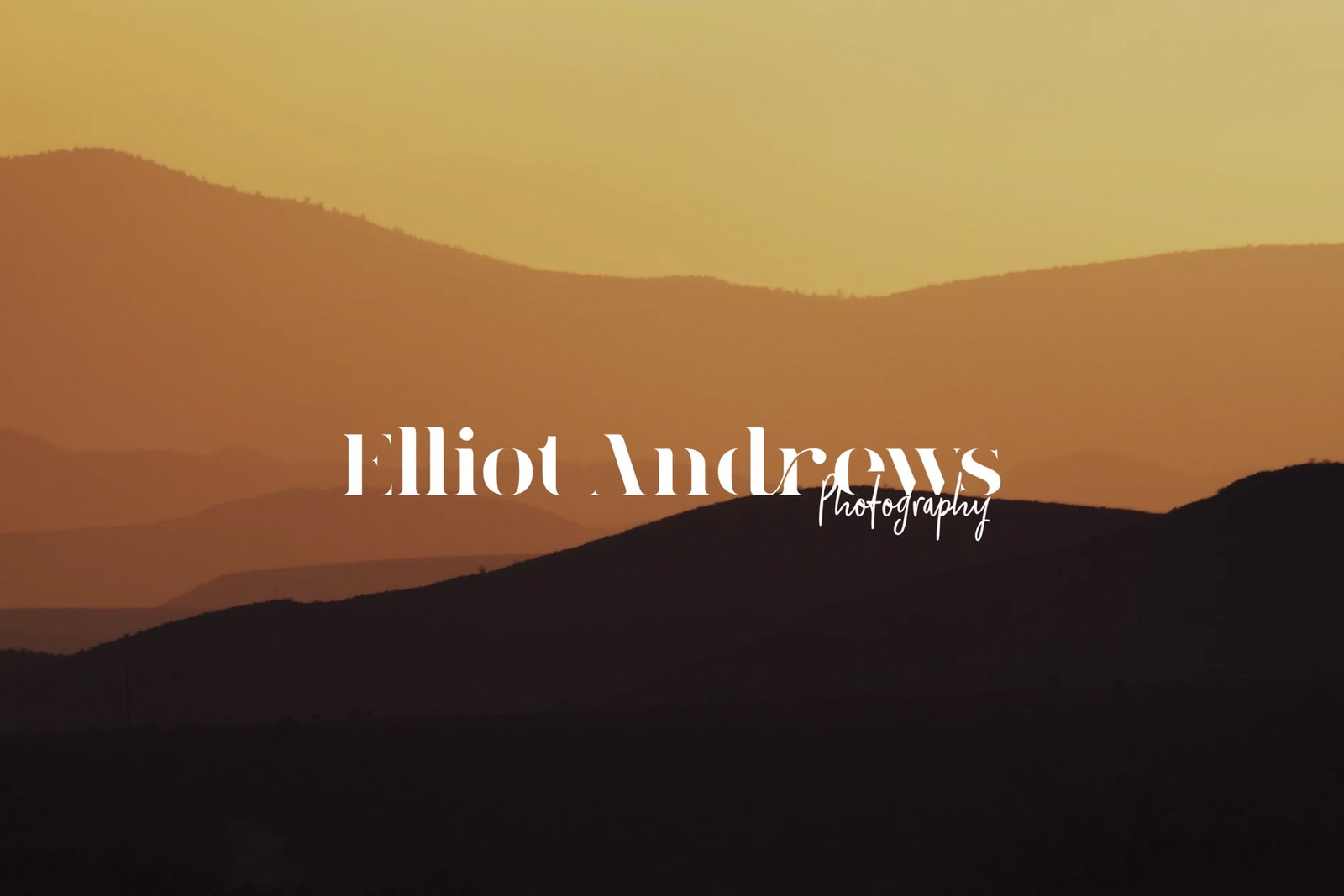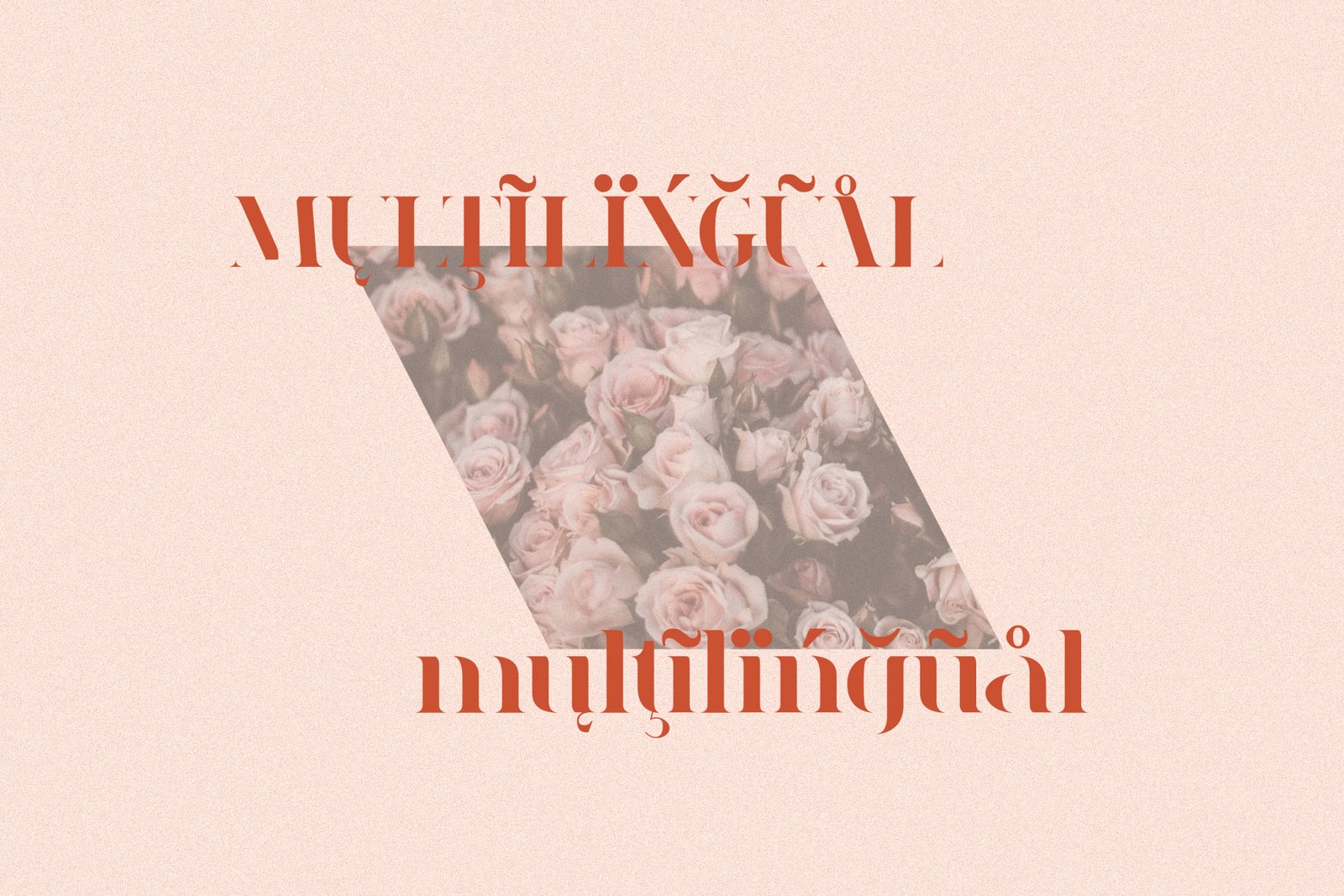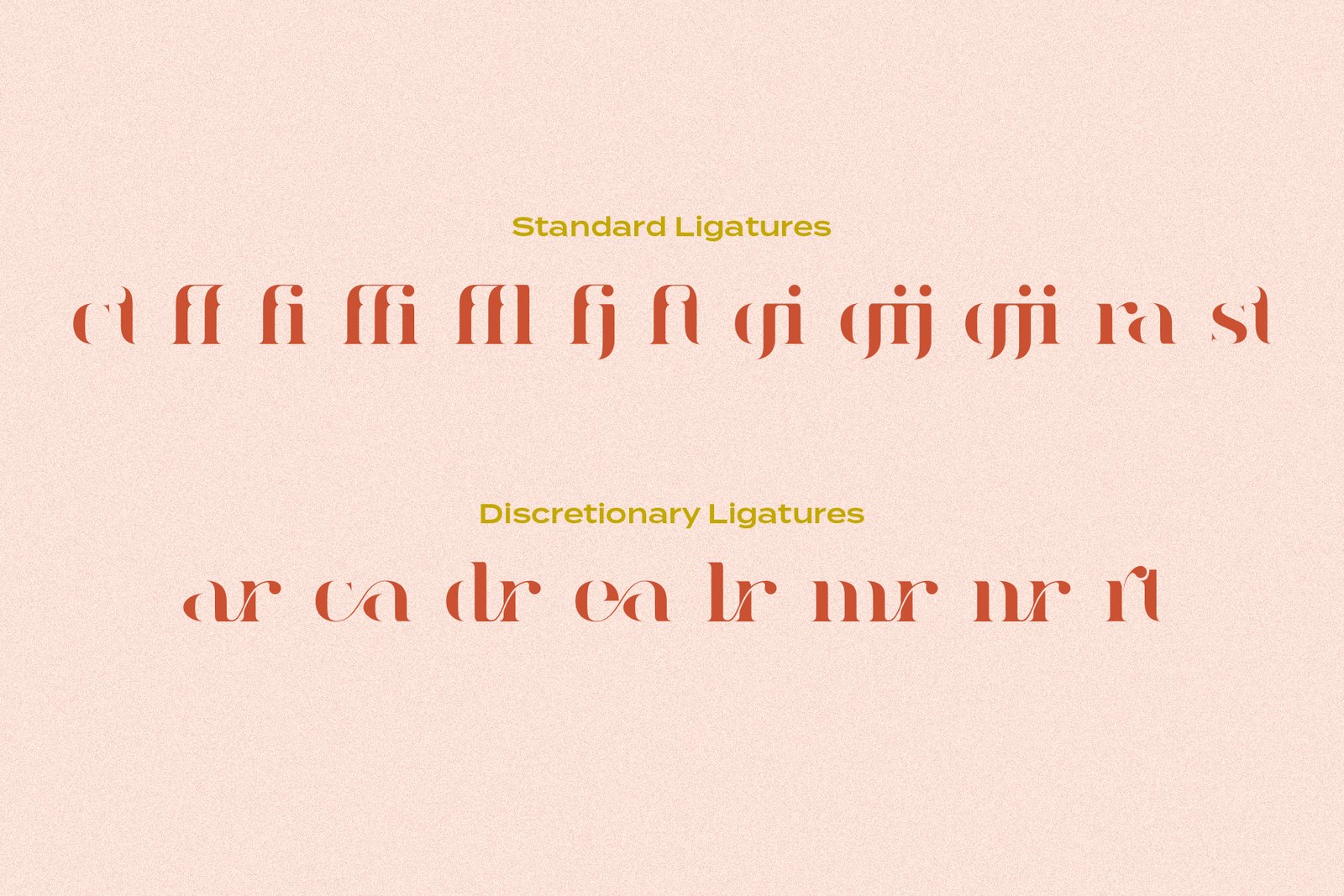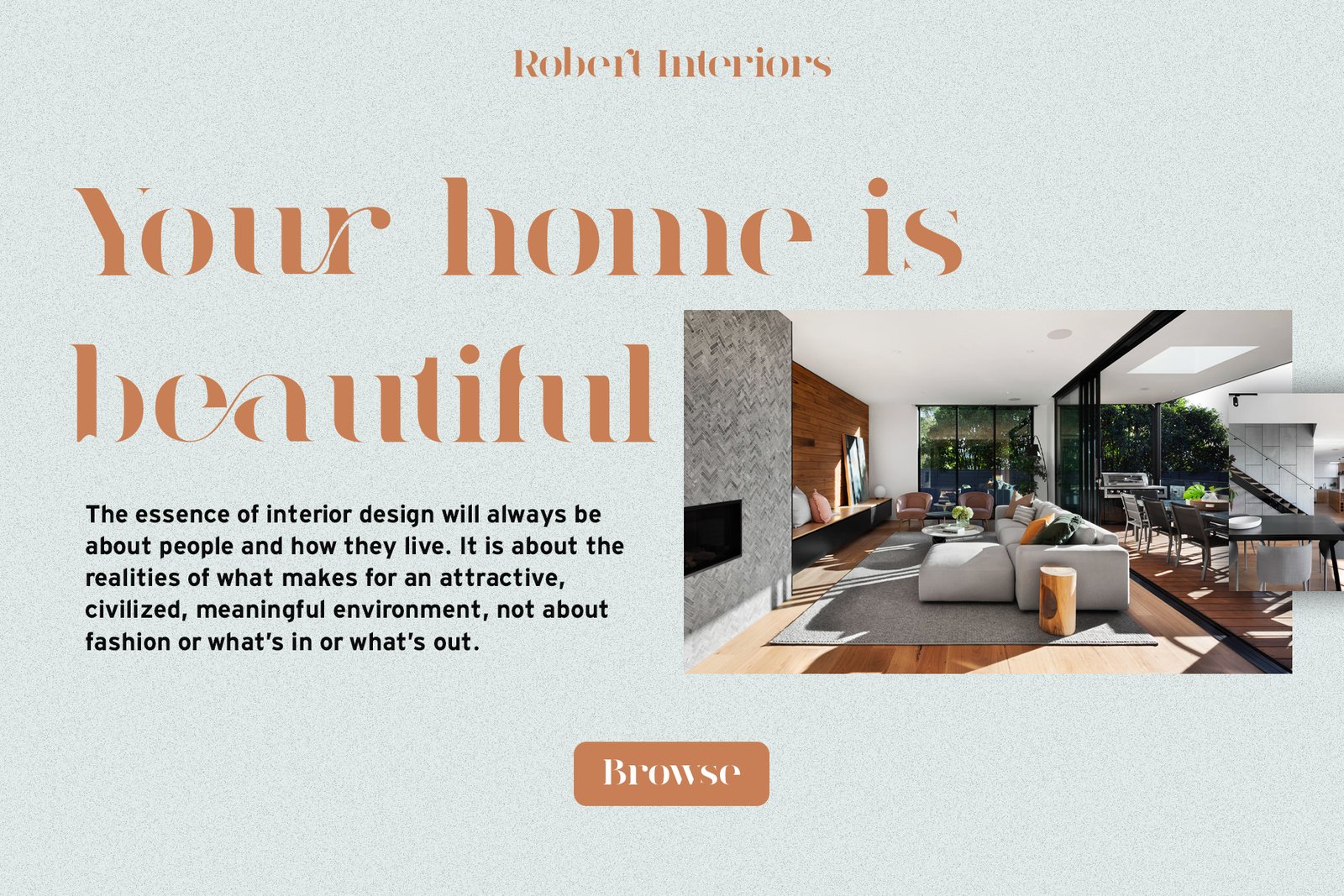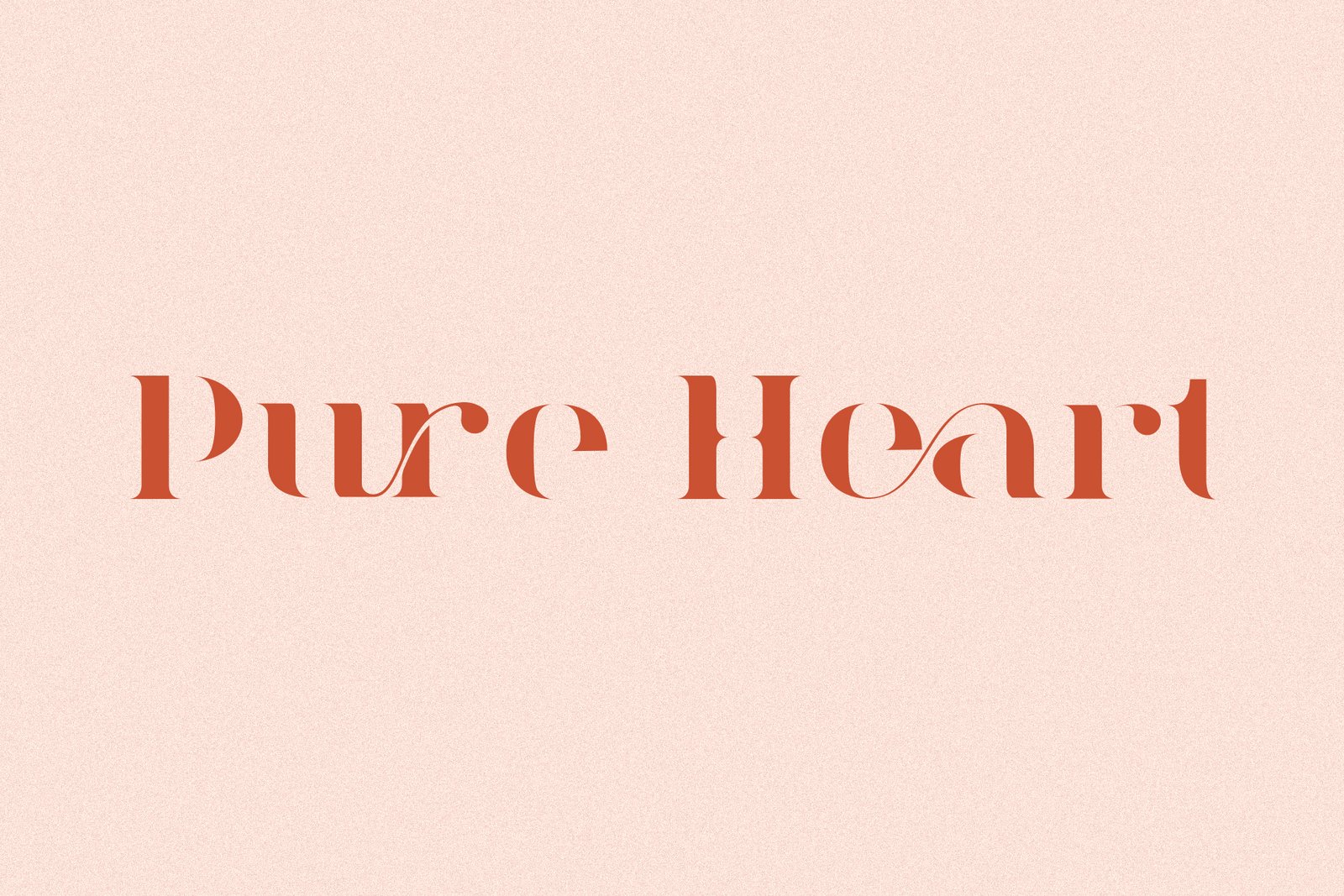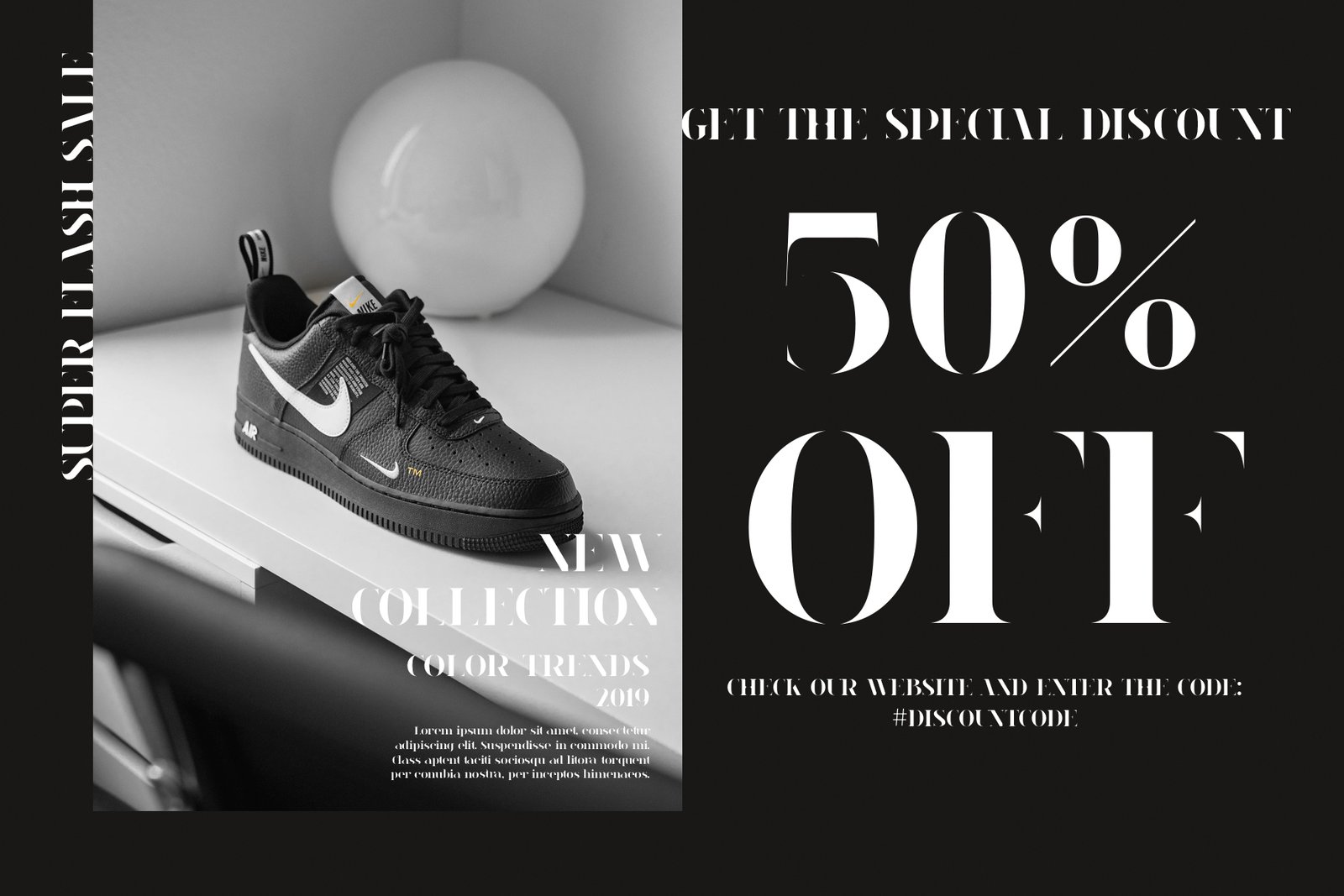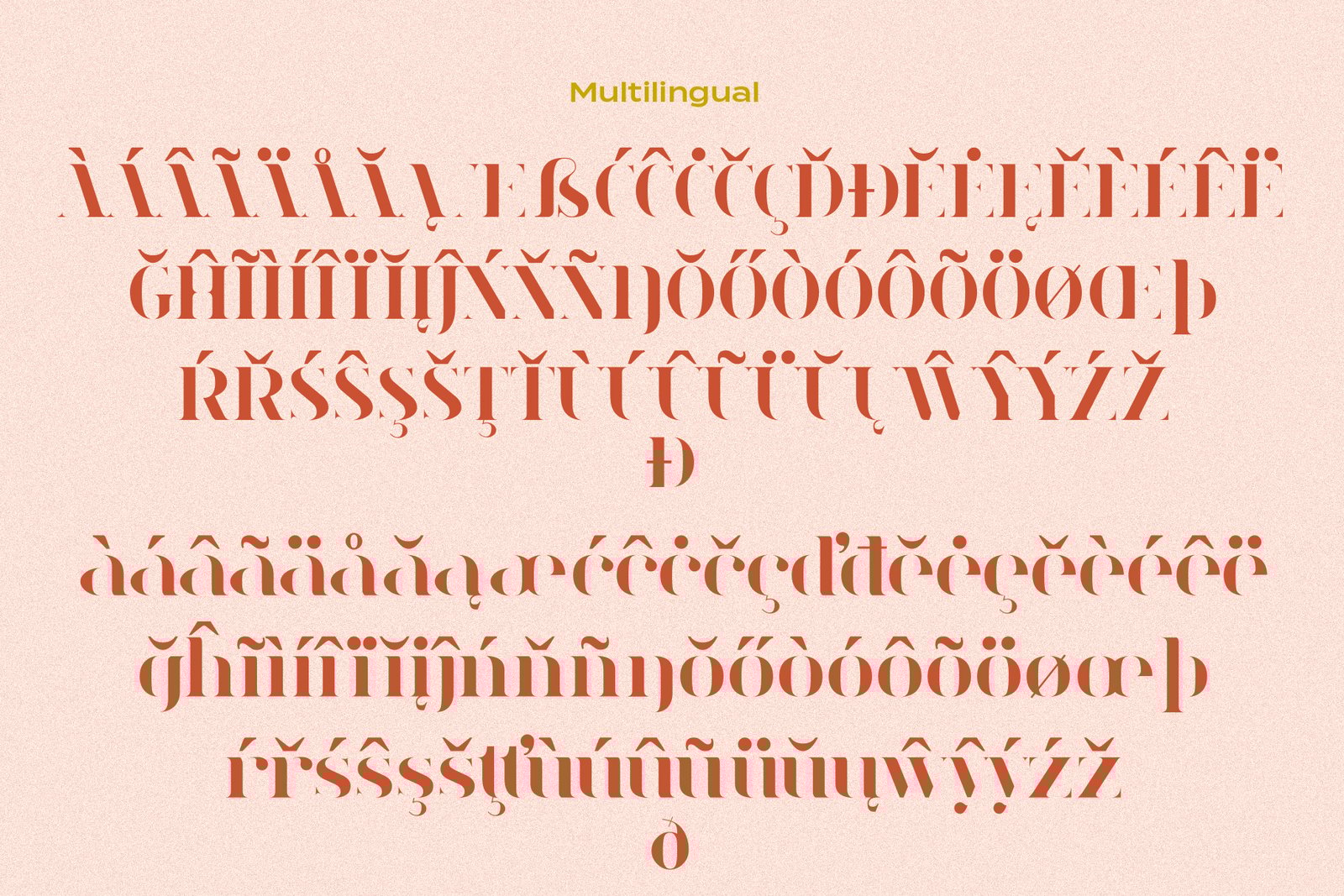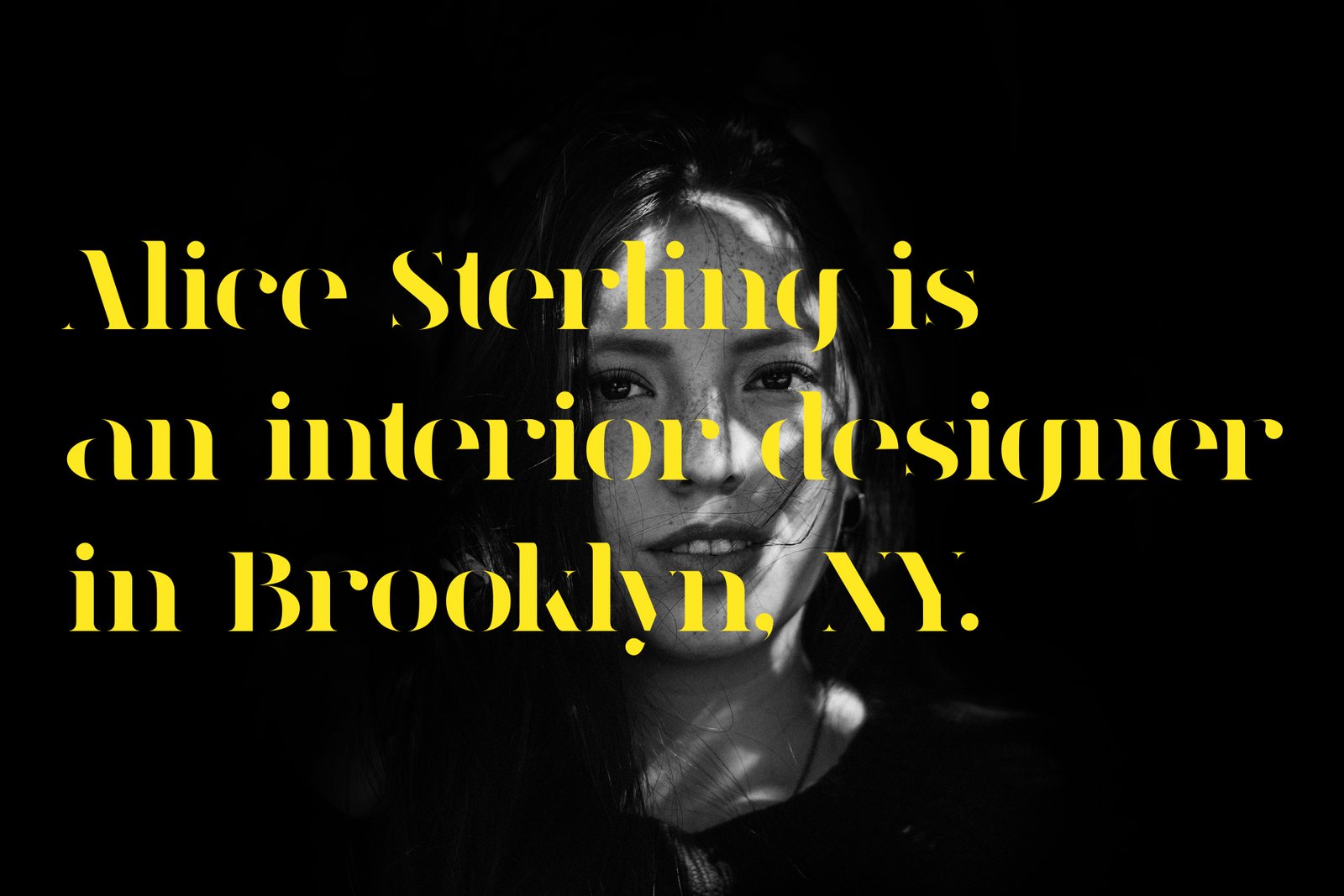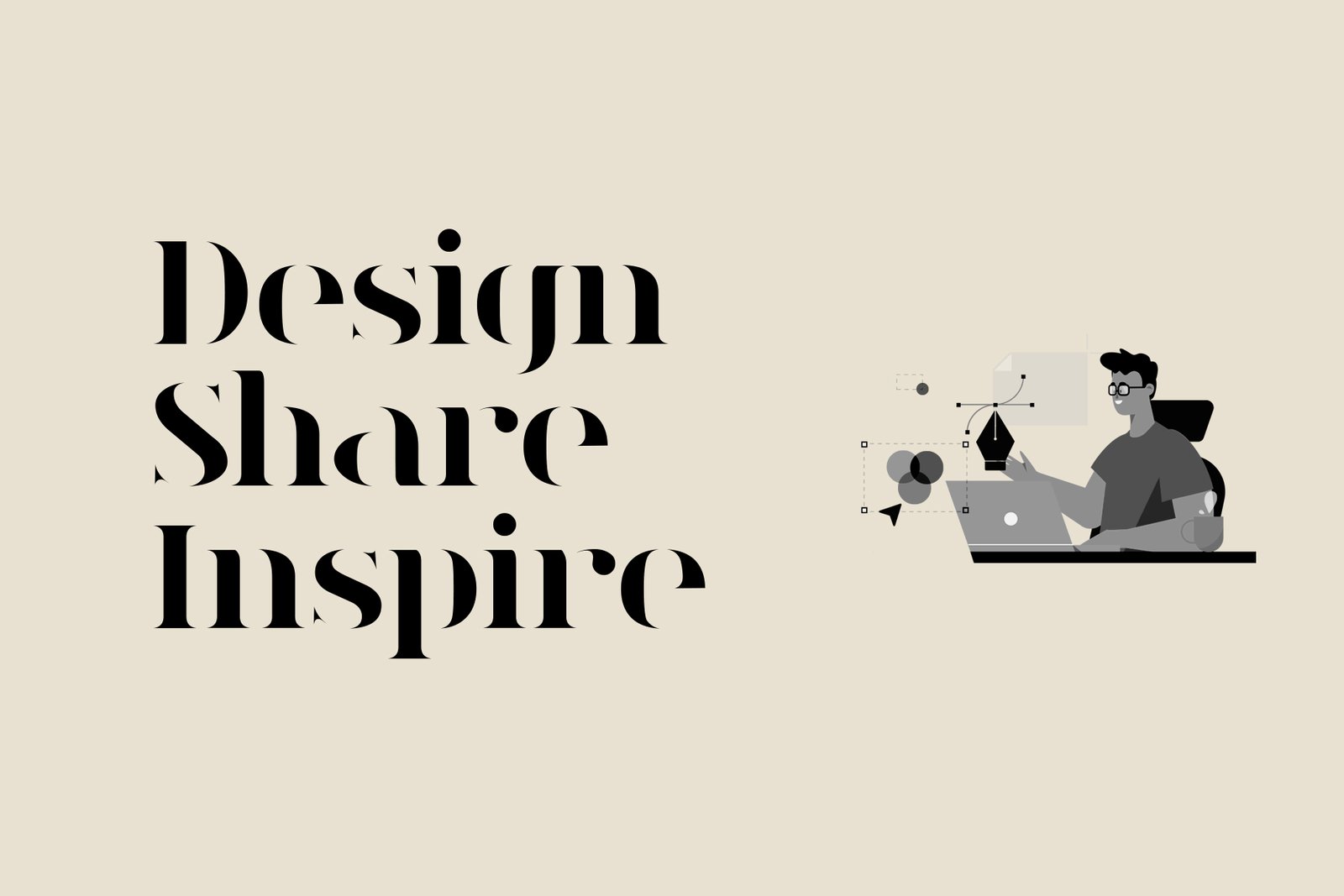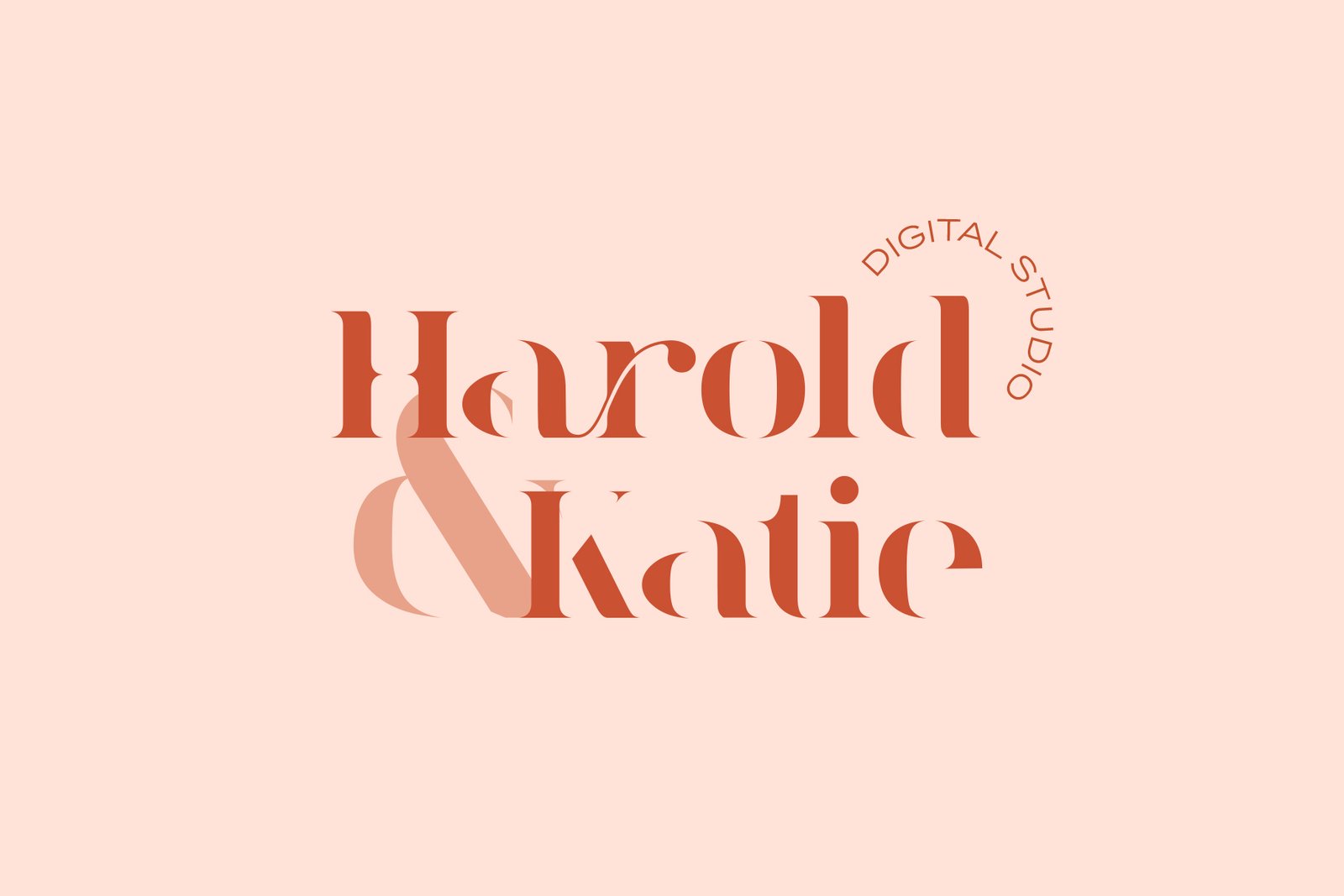
Pure Heart - Serif Font
Pure Heart is an elegant display font. Use it for headlines, titles, cover photos, web design, you name it.
Pure Heart is a multilingual font that supports various languages.